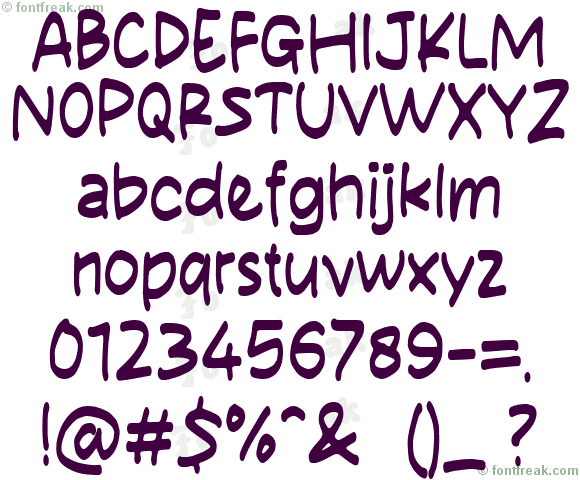
Striker
About Striker
Striker by MJType is a distinctive display font that captures attention with its playful yet bold design. This font features a unique handwritten style, characterized by varying stroke weights and dynamic spacing that adds a sense of movement and energy to any text. The letters are designed with a slightly irregular flair, making them feel organic and lively, while still maintaining legibility. The overall aesthetic is both modern and approachable, making it a versatile choice for various applications.
Ideal use cases for the Striker font include wedding invitations, where its charming style can convey a personal touch; movie posters, where the boldness can create an impactful visual statement; restaurant menus, which benefit from its inviting appearance; and social media graphics, where it can enhance engagement with its friendly vibe. Additionally, it serves well for product packaging, especially for artisanal goods that aim to evoke a handmade feel. This font is perfect for graphic designers, small business owners, and content creators looking to make a memorable impression.
What sets Striker apart is its ability to blend fun and professionalism seamlessly. The font’s unique handwritten characteristics bring warmth and character to any design project, while its legibility ensures that messages are effectively communicated. Whether you are crafting a flyer, designing a logo, or developing marketing materials, the Striker font free download offers a fresh and distinctive option that can elevate your work. With its versatility and eye-catching style, Striker is sure to become a go-to resource for anyone seeking an engaging typeface that stands out in a crowded visual landscape.